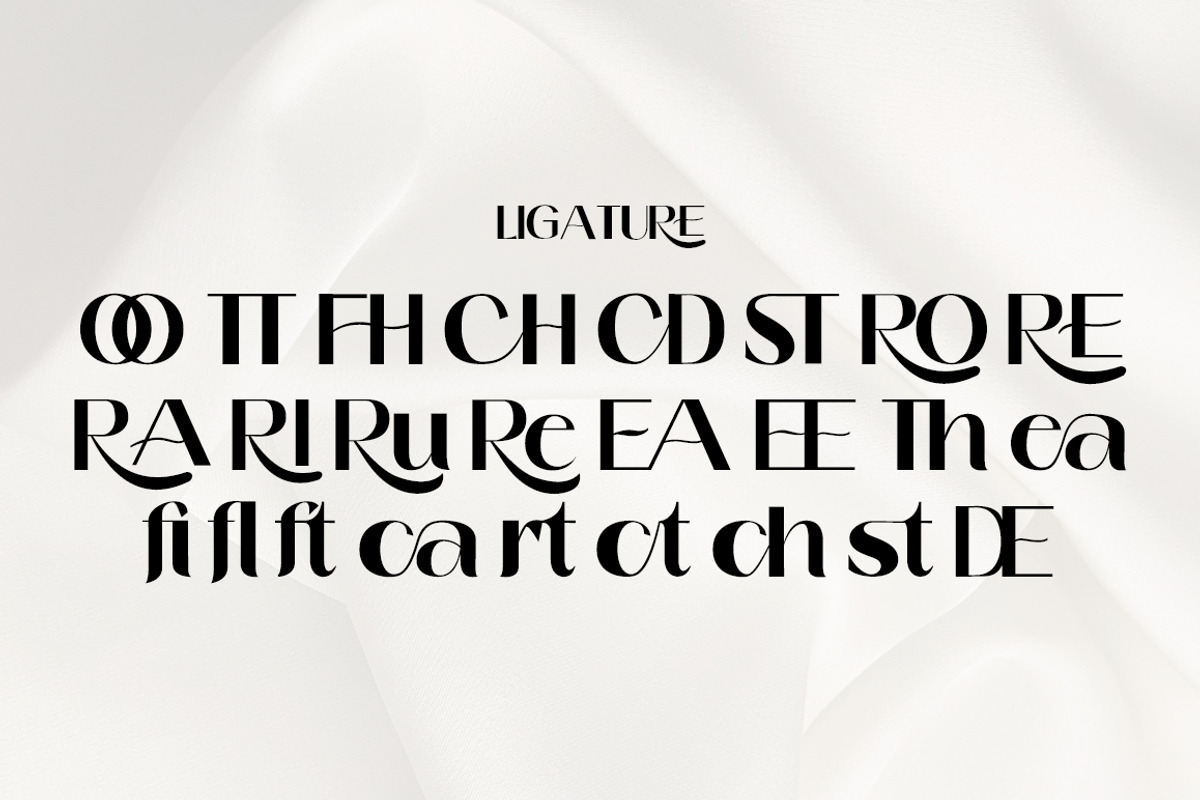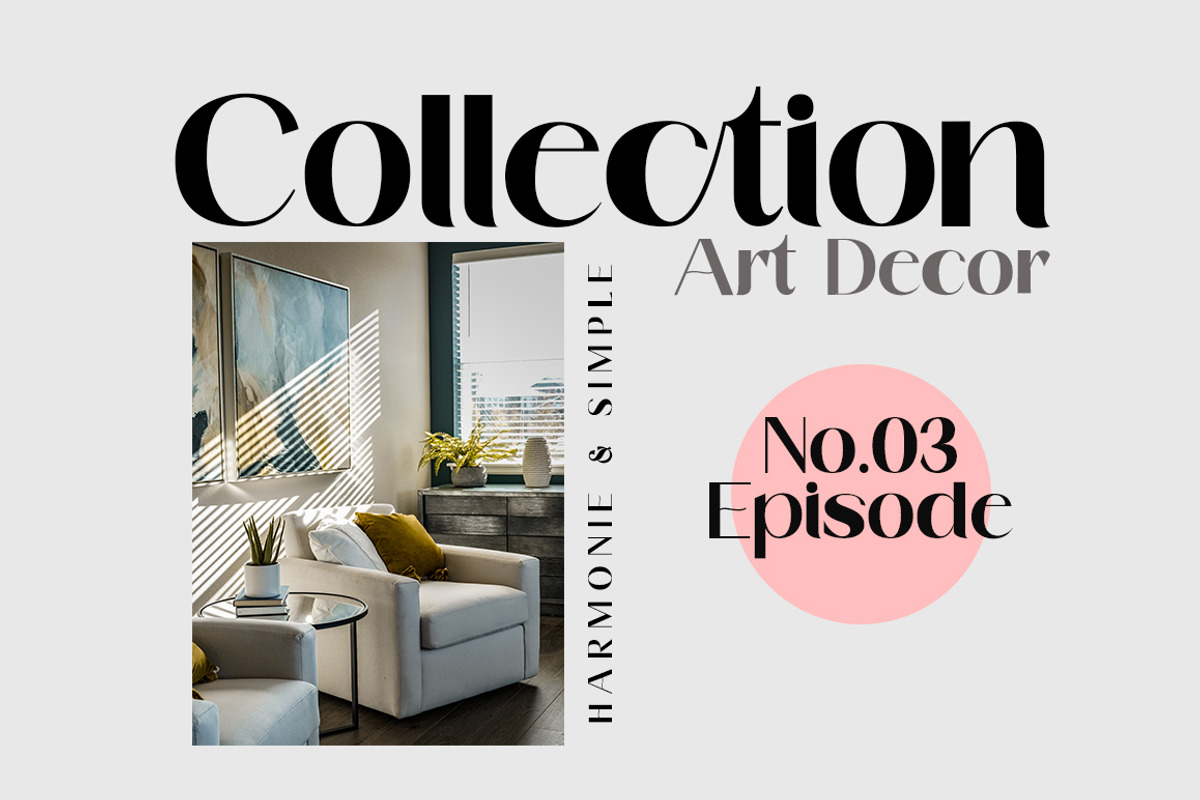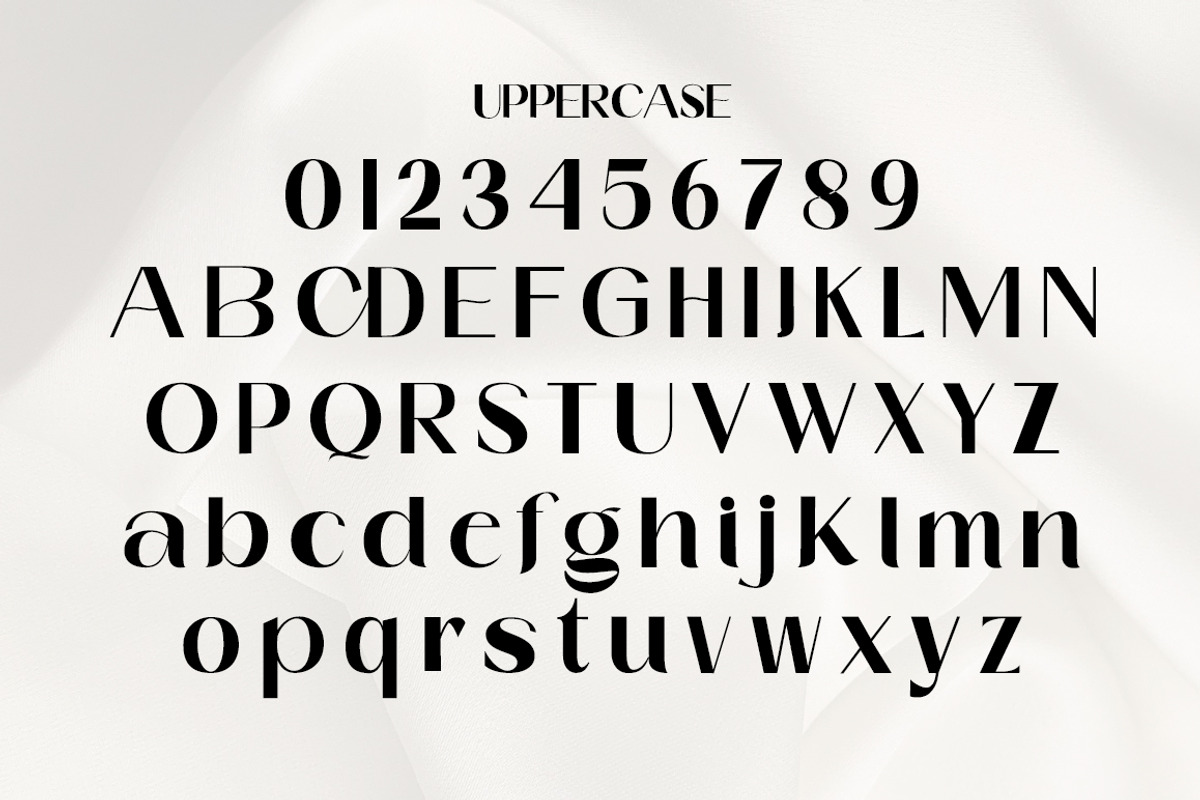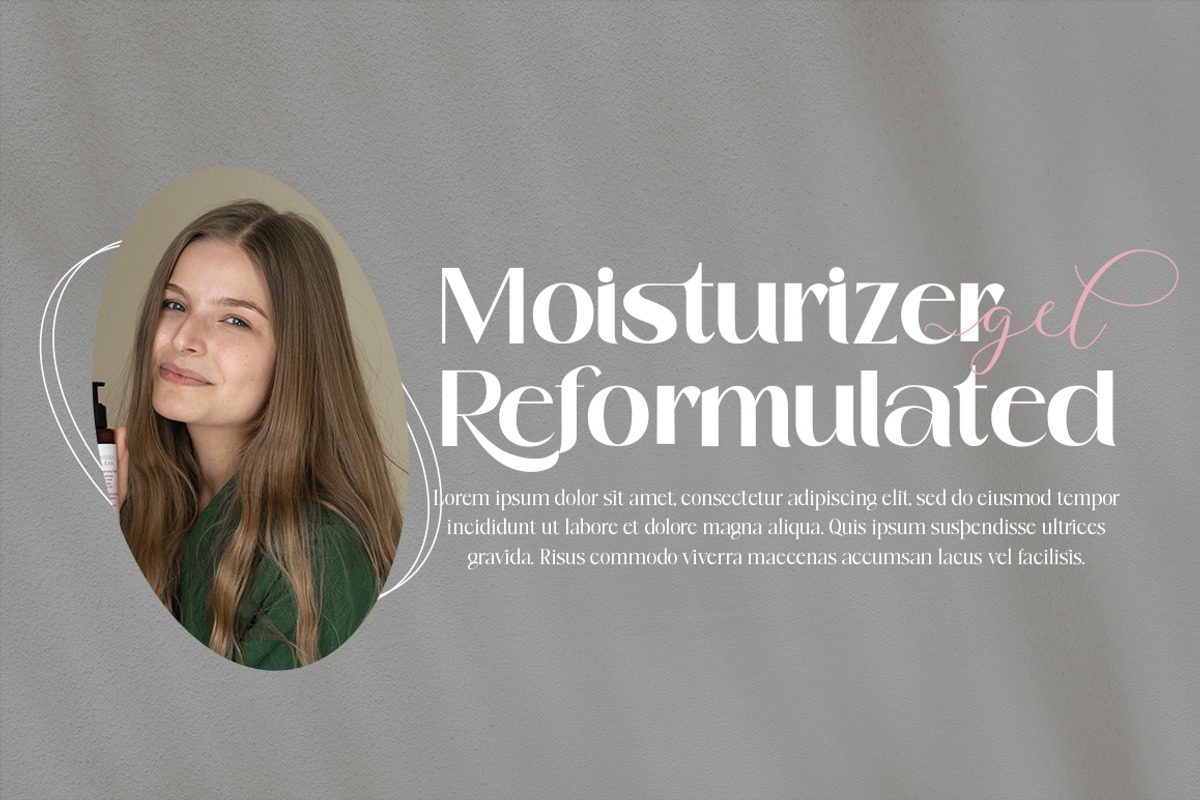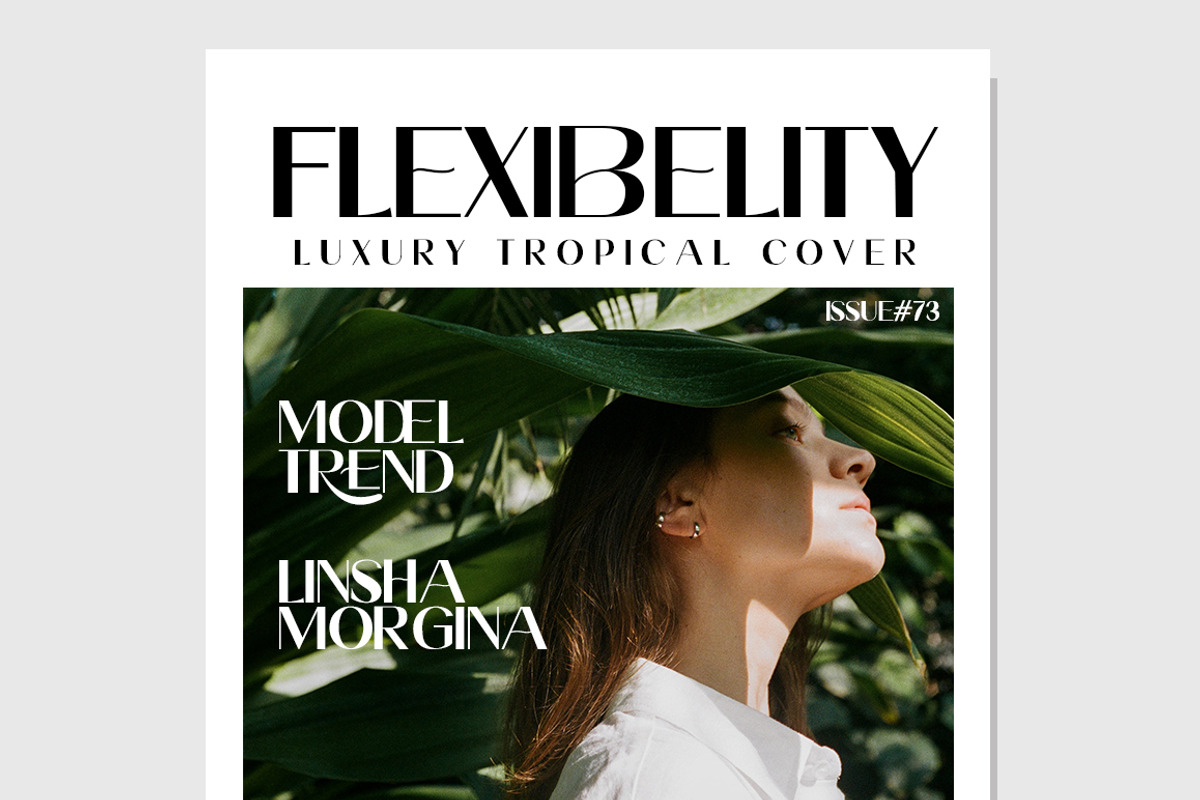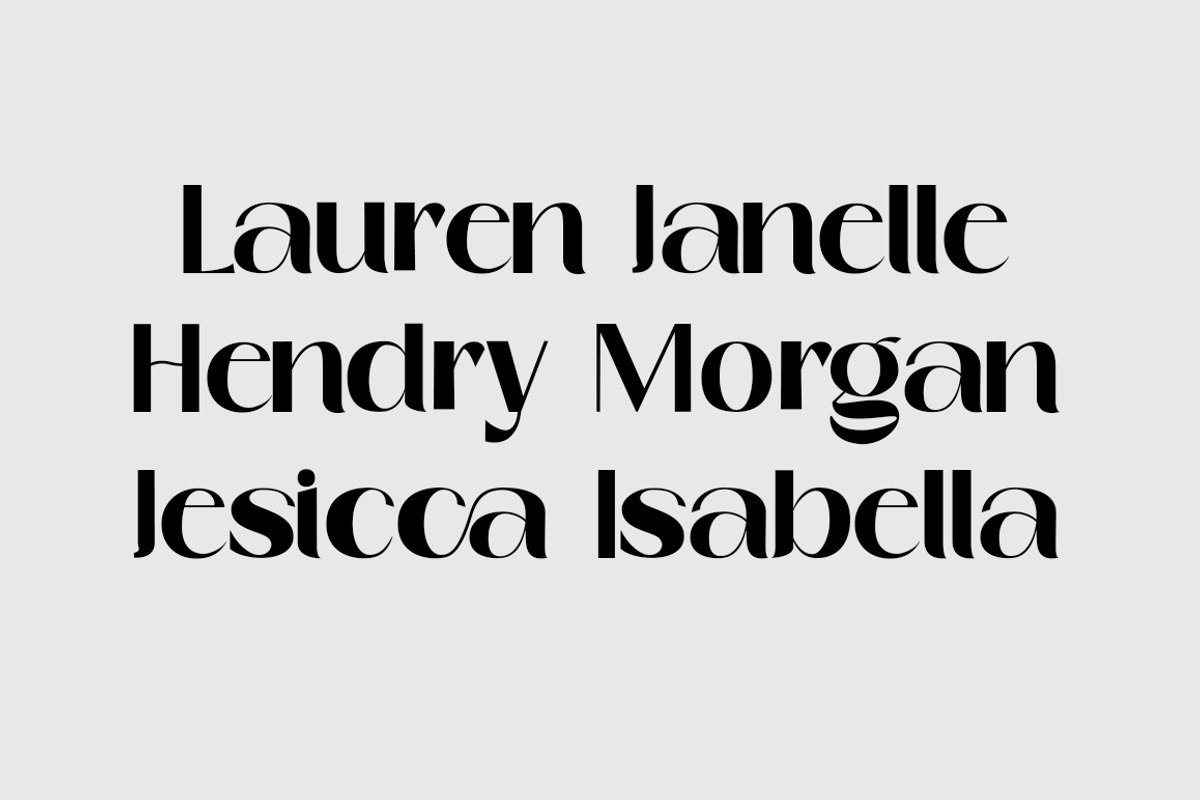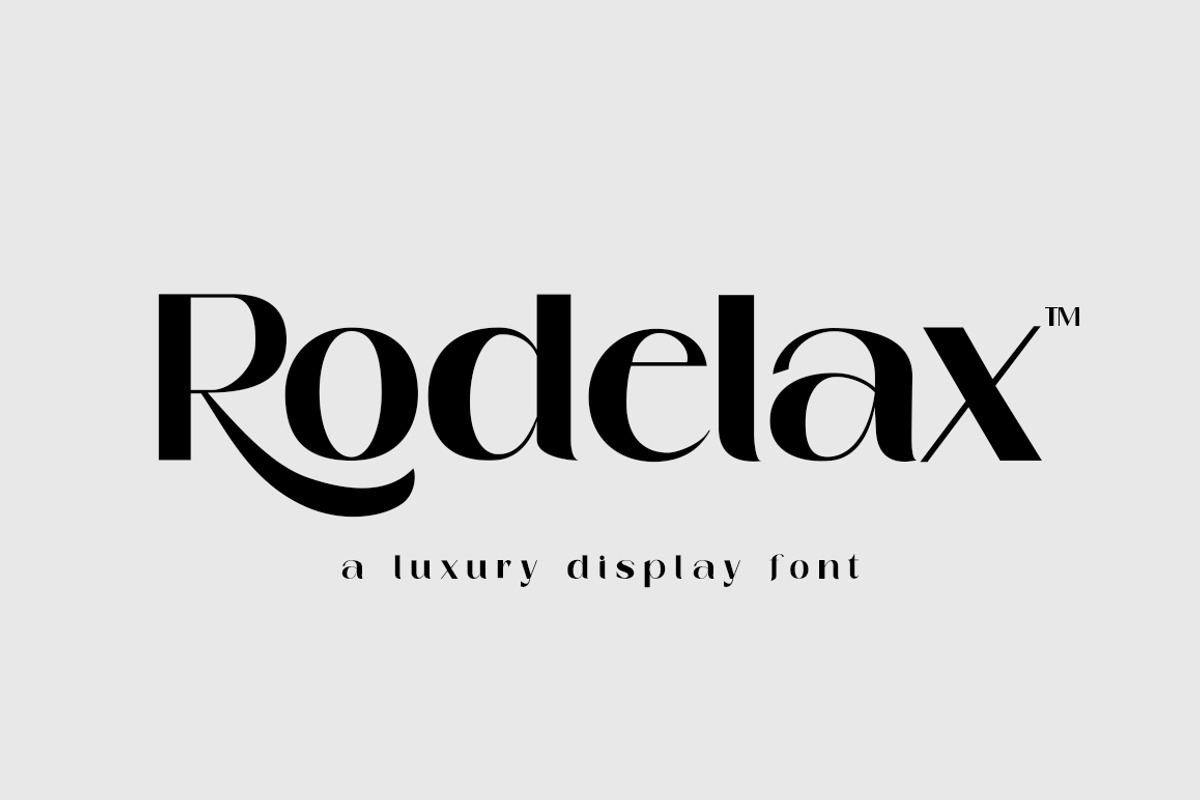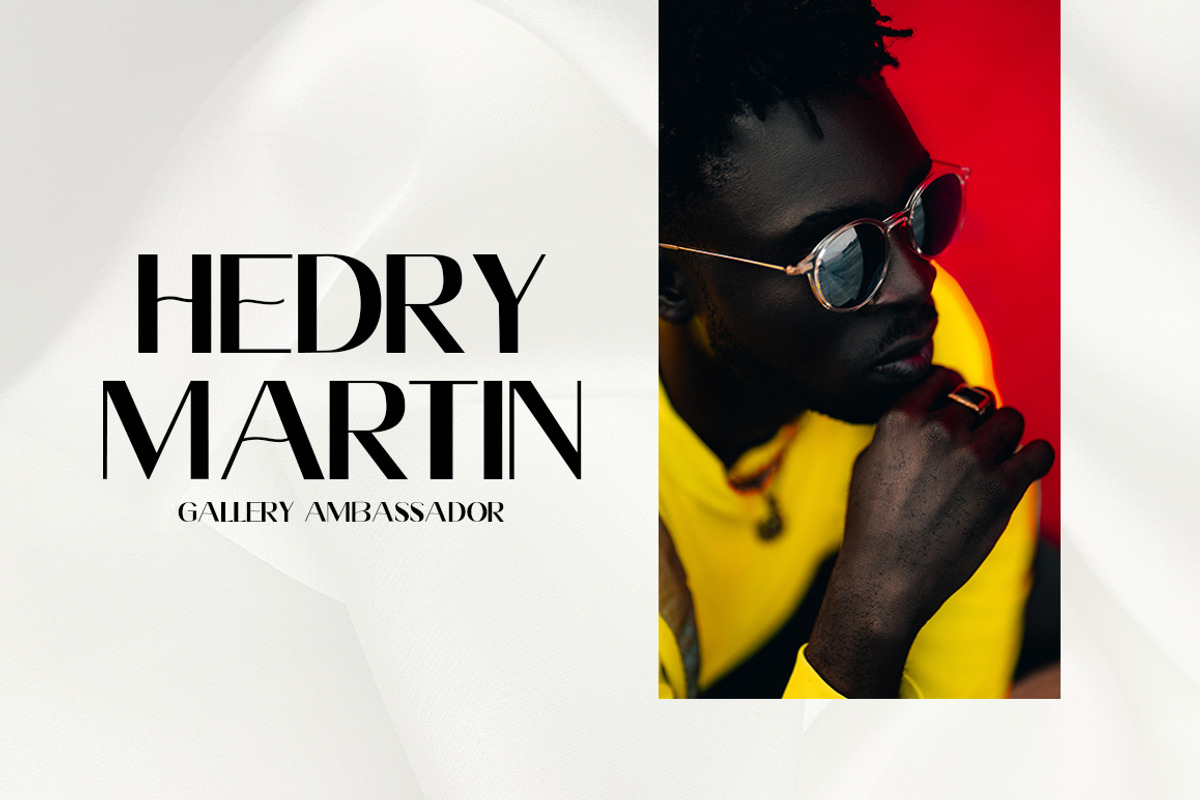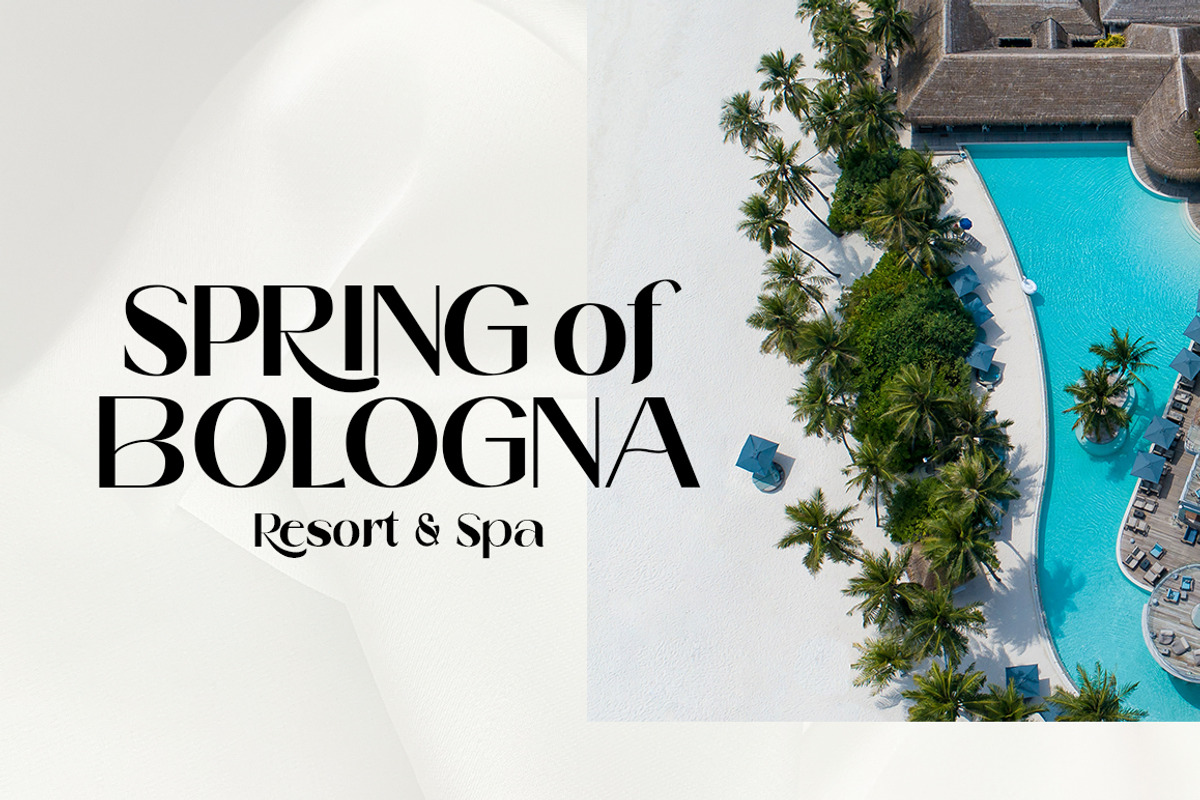
Rodelax
Rodelax is a classy, modern serif typeface. A beautiful bold serif designed specifically for display. Inspired by modern fashion and classic typography, this font features hundreds of alternative characters and ligatures.
Rodelax typeface represents luxury, elegance, glamour, fashion, and wealth. This font works perfectly for logotypes, invitations, cards, magazines, clothing, fashion, lifestyle, posters, social media kits and more!